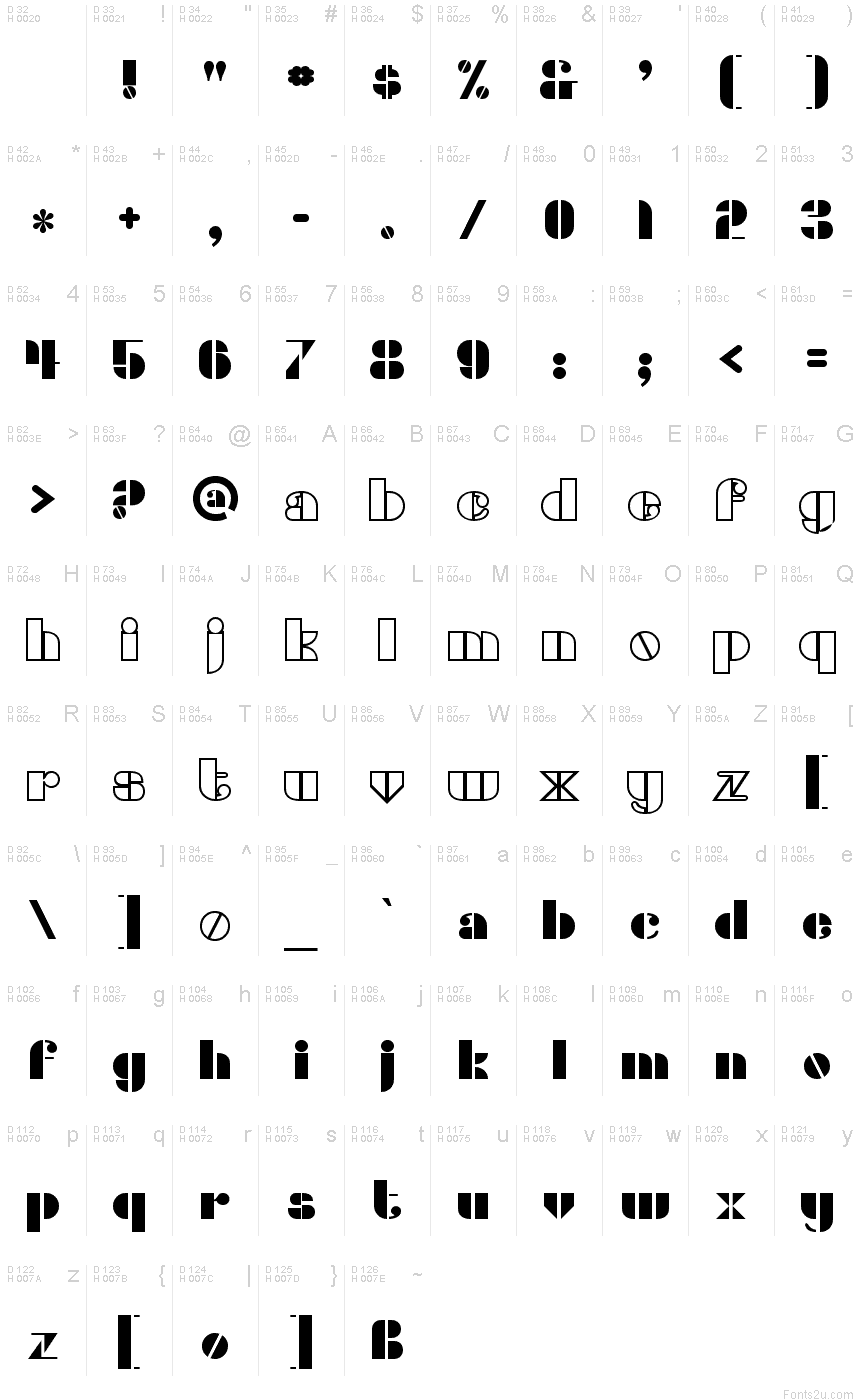
Densmore
Densmore font by Ray Larabie of Larabiefonts is a free geometric decorative typeface that turns every word into a bold, modular pattern. Chunky circular forms lock into tall rectangular stems, creating a rhythmic “on/off” feel that’s part retro synth, part arcade cabinet. The tight spacing and solid black shapes give it a dense, inky texture, while the occasional open stroke adds just enough air to keep it readable at large sizes.
This free font shines on music posters, album covers, club flyers, fashion branding, game titles, and futuristic logos where you want letters to feel like graphic icons. Using Densmore at oversized headline scales and pairing it with a clean grotesque or neo-grotesque for small text keeps layouts striking but grounded.